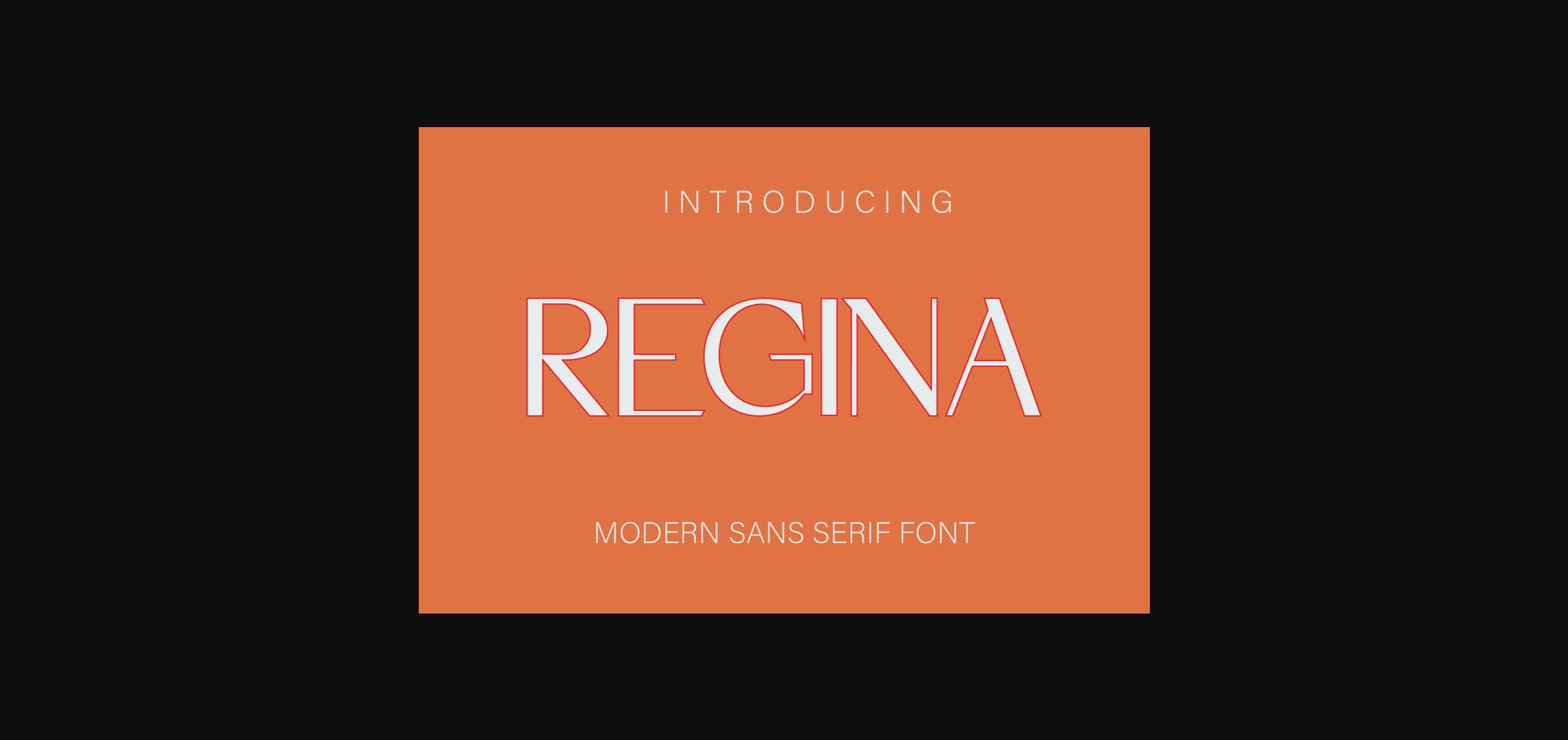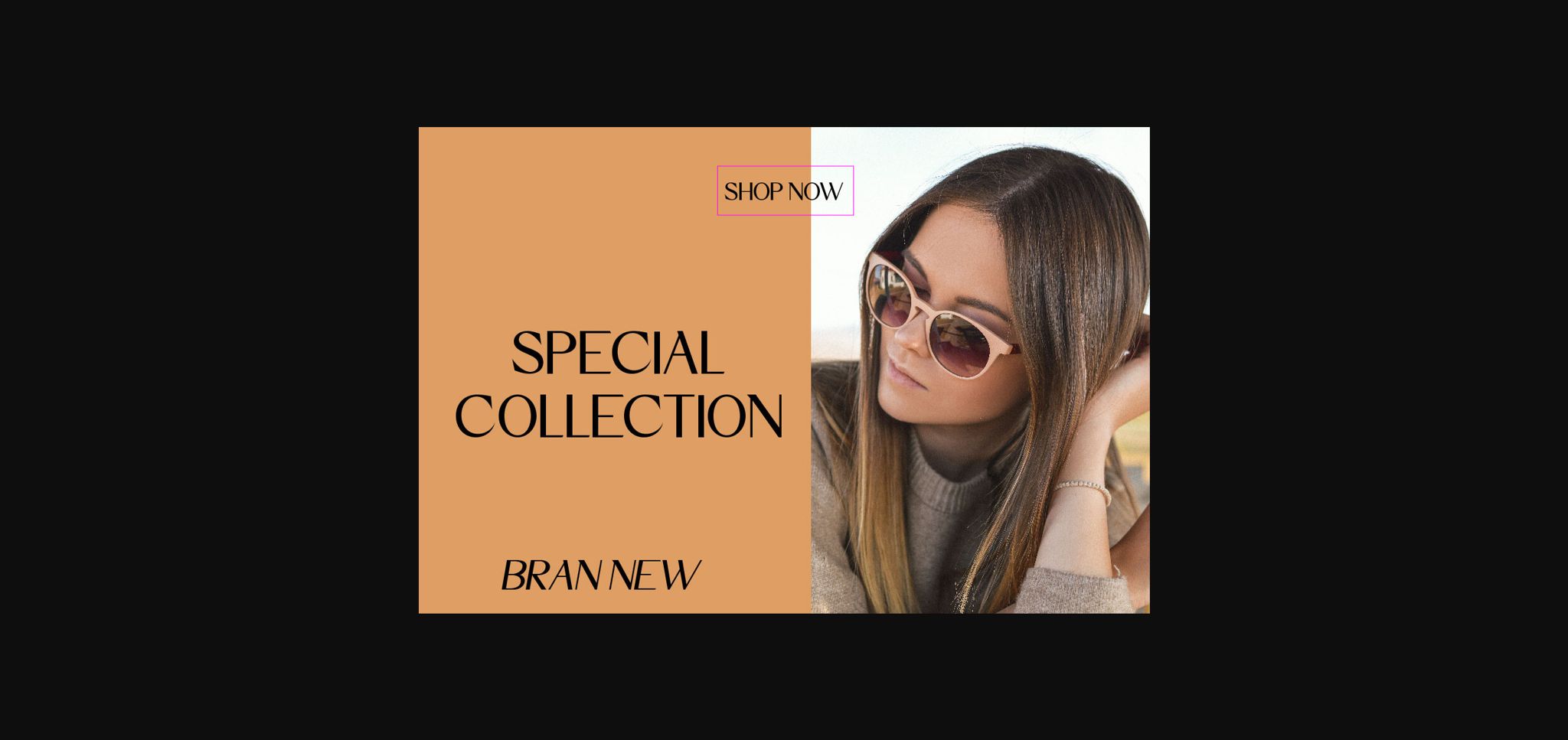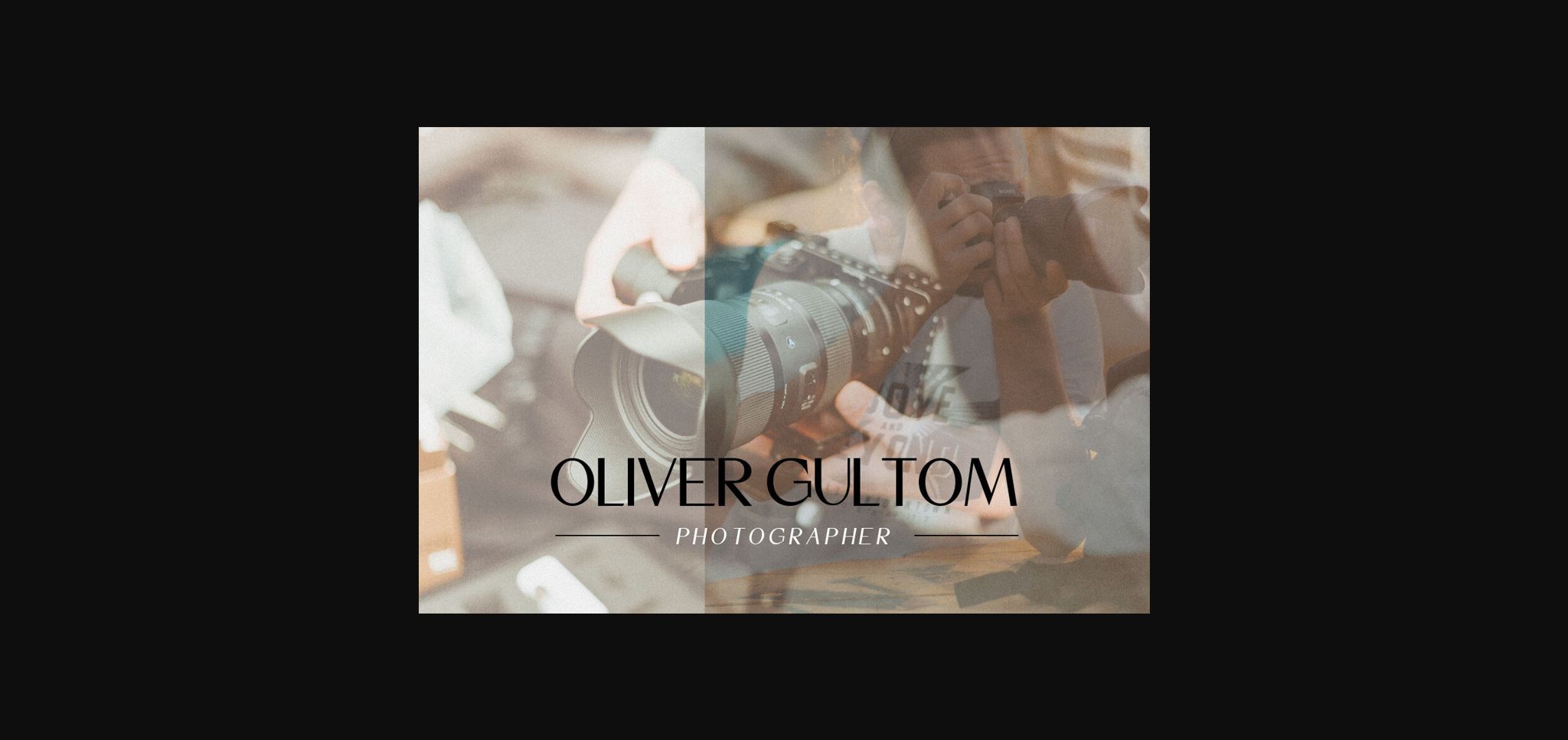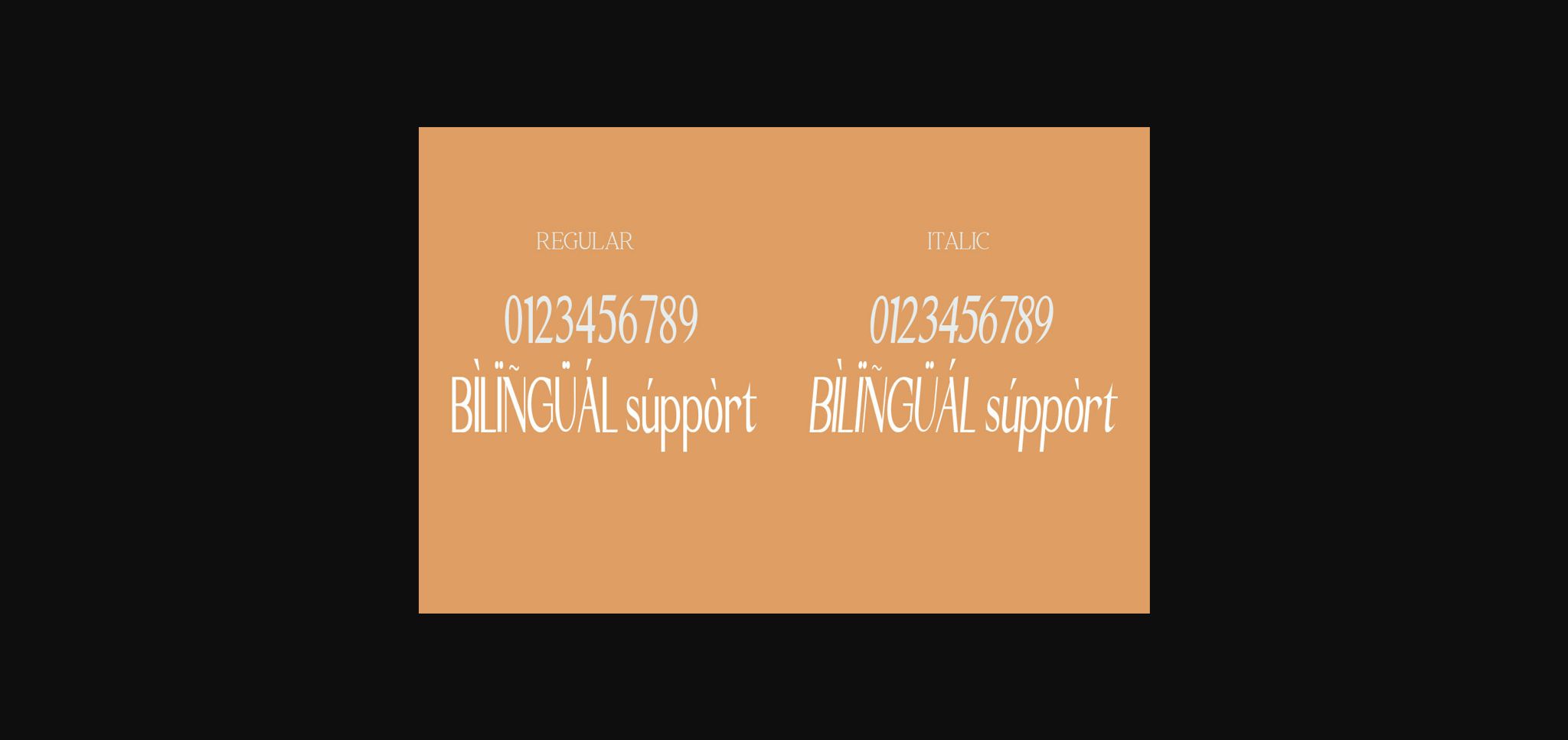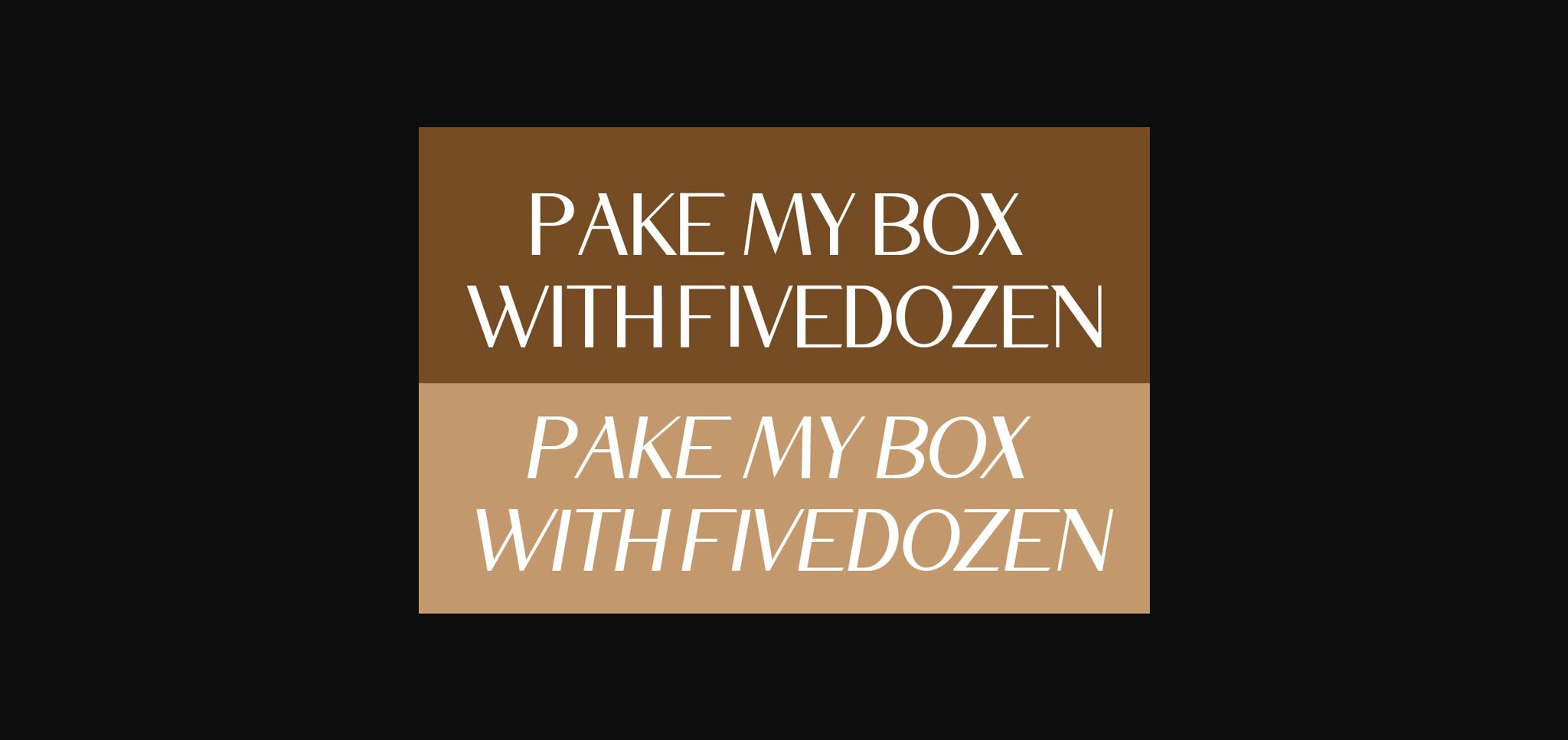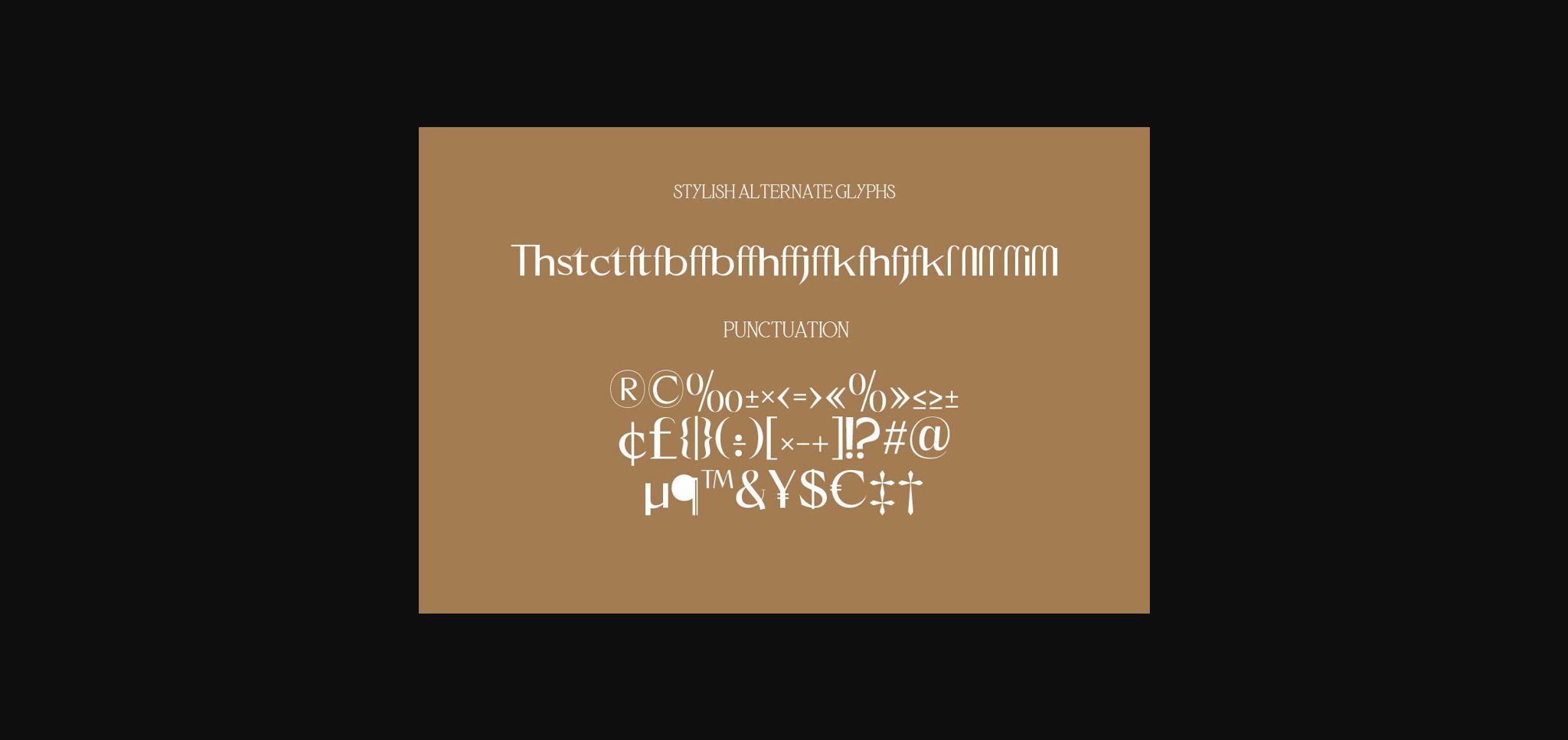
About Regina Font
Regina is a modern and stylish sans-serif font that exudes sophistication and versatility. With clean lines and balanced proportions, it offers excellent readability across various design projects. Whether used for branding, editorial content, or web design, Regina adds a touch of contemporary elegance to any composition.